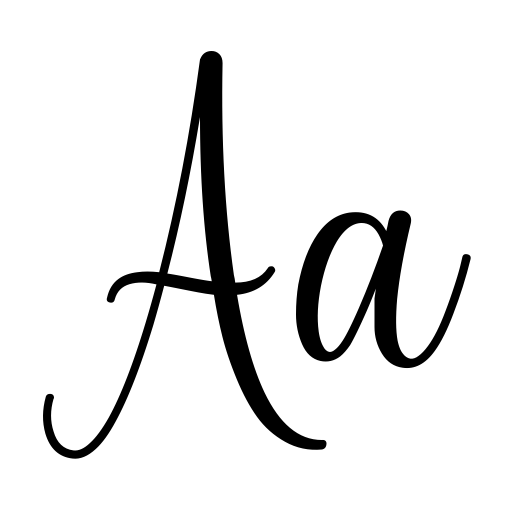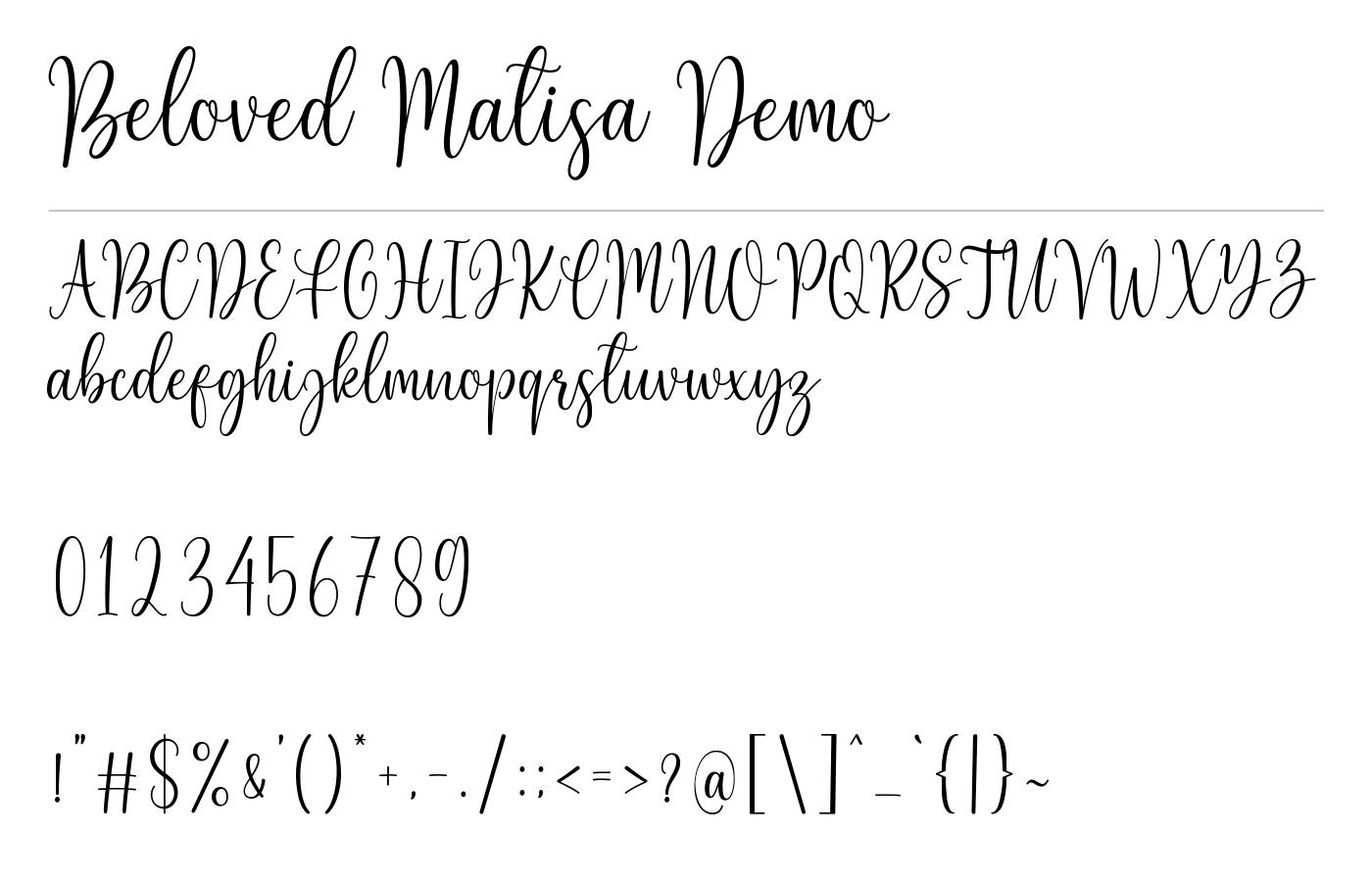
Beloved Matisa Demo is an elegant script font featuring slender, fluid strokes that evoke a handwritten, romantic feel. Its tall x-height and graceful curves make it perfect for invitations, branding, or any design that desires a sophisticated yet approachable touch. This font works especially well in fashion, wedding, and beauty contexts where a delicate, stylish personality is key.
Beloved Matisa Demo Font
About Beloved Matisa Demo Font
| Font family | Beloved Matisa Demo Font |
| Designer | Rayvaldo Rizki Pratama Augusta |